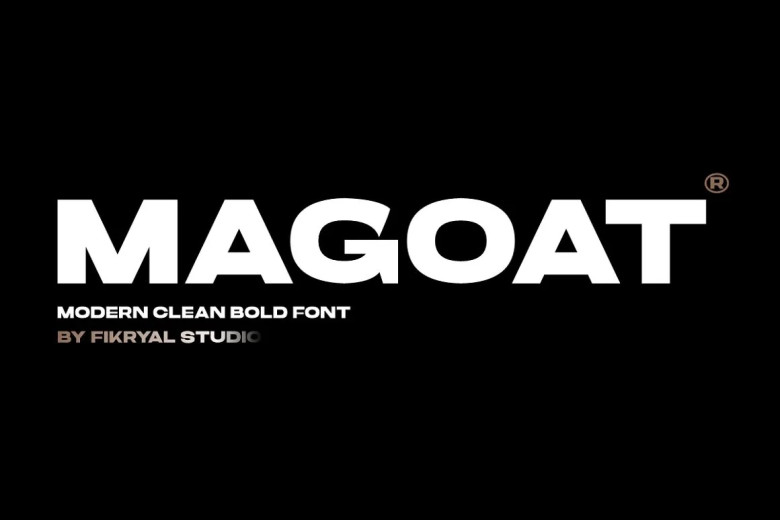
Magoat Font
Magoat Modern, Clean Bold Font offers a modern and eye-catching style to your graphic design work, drawing attention with its sharp All Caps style and confidence. Magoat font’s characters are all meticulously created, exuding modernity and cleanliness with its perfectly formed characters and striking forms that lend the font its modern and clean aesthetic.
Magoat lends itself perfectly for designs, titles, logos or any element requiring a solid and distinctive appearance such as posters. Magoat stands out with its bold appearance while maintaining every letter precisely, guaranteeing your message is received clearly and easily.
Your design work will receive an appealing professional, modern and contemporary appearance that adds visual impact across a range of visual platforms.
Magoat Bold Sans Font